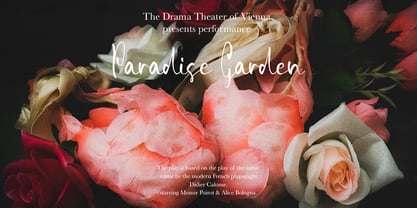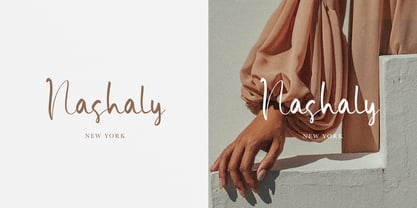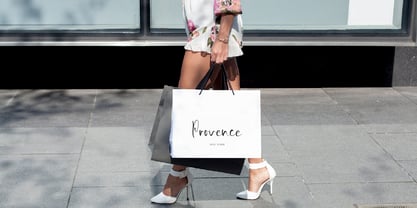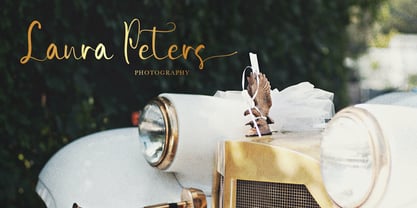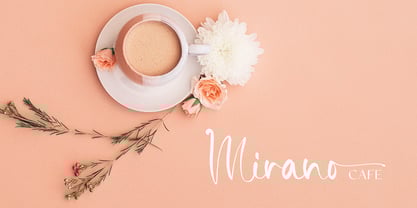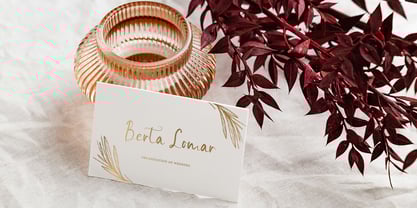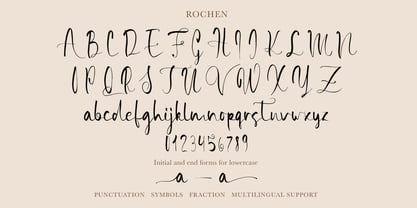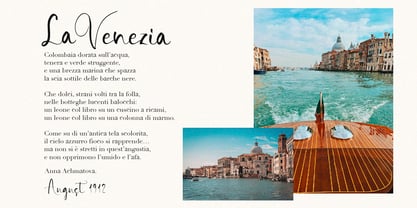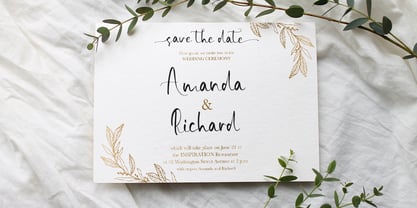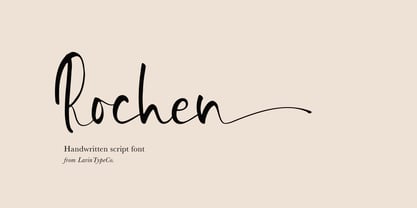
Rochen
por Larin Type Co
La familia tipográfica Rochen fue diseñada por Pavel Larin y publicada por Larin Type Co. Rochen contiene 1 estilos. Más información sobre esta familia
Rochen this amazing handwritten font is light and elegant, will emphasize your personality in any project and will charm you with its signature.
This font includes initial and end forms make your signature with them. You can use it to create logos, branding, t-shirts, book covers, stationery, marketing, blogs, magazines, cosmetics, signage, and more.
Diseñadores: Pavel Larin
Fundición: Larin Type Co